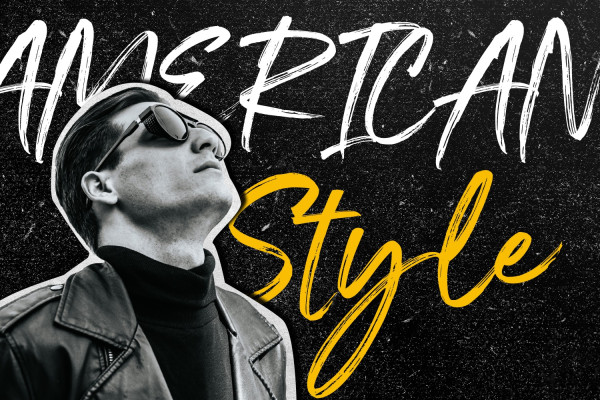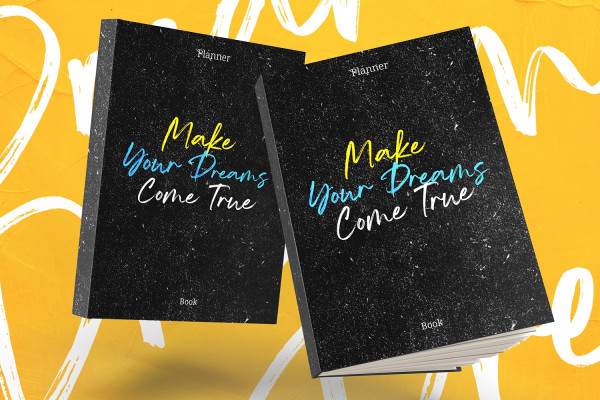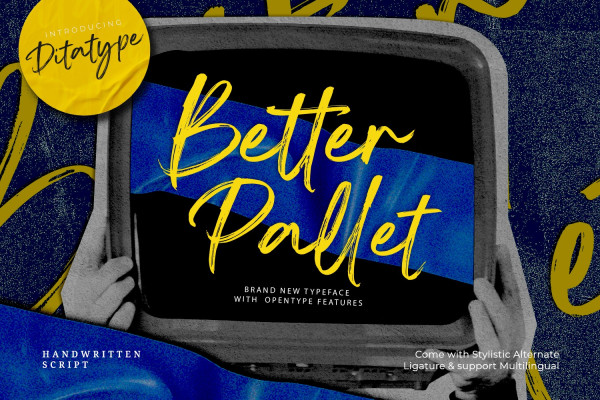
Better Pallet Font
Better Pallet Font is a charming script font that beautifully captures the essence of continuous handwriting with delightful brush details. This typeface exudes a sense of warmth and authenticity, as if each letter were penned by hand with artistic flair.
With its smooth and flowing letterforms, this font offers a natural and seamless writing style, making it perfect for projects that require a personal and artistic touch. The brush details add a touch of whimsy and elegance, creating subtle variations in stroke width that infuse the font with a handcrafted charm.
The continuous handwriting style of Better Pallet ensures that each letter flows gracefully into the next, creating a harmonious and aesthetically pleasing look. The brush details add depth and character, making every word a work of art. For the best legibility you can use this font in the bigger text sizes. Enjoy the available features here.